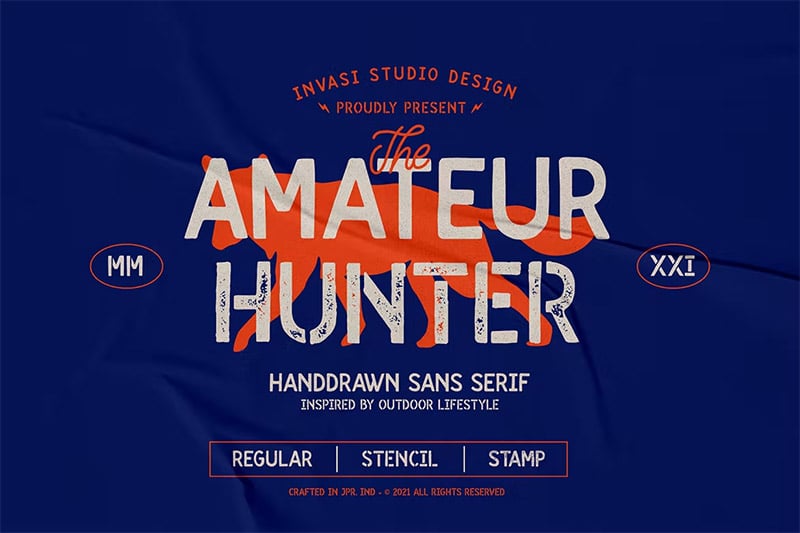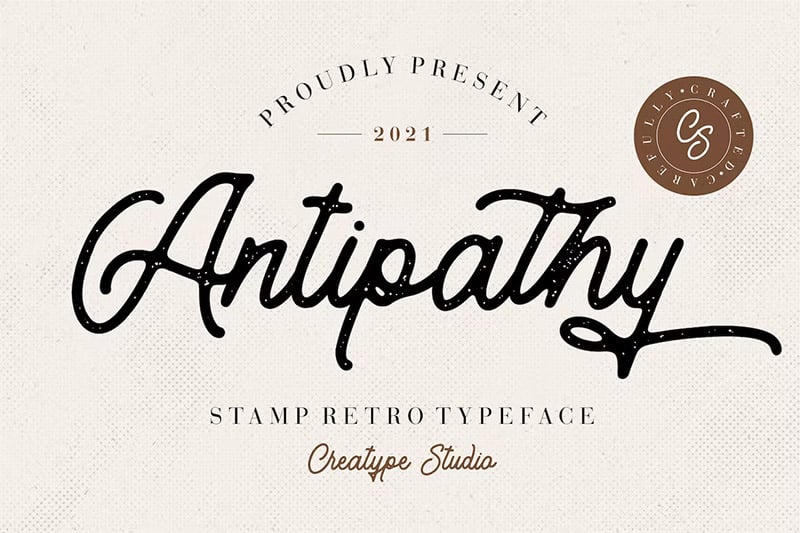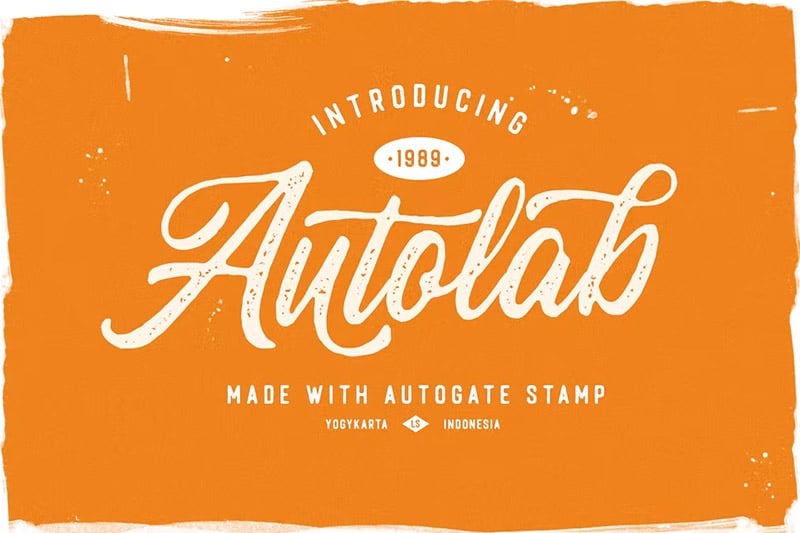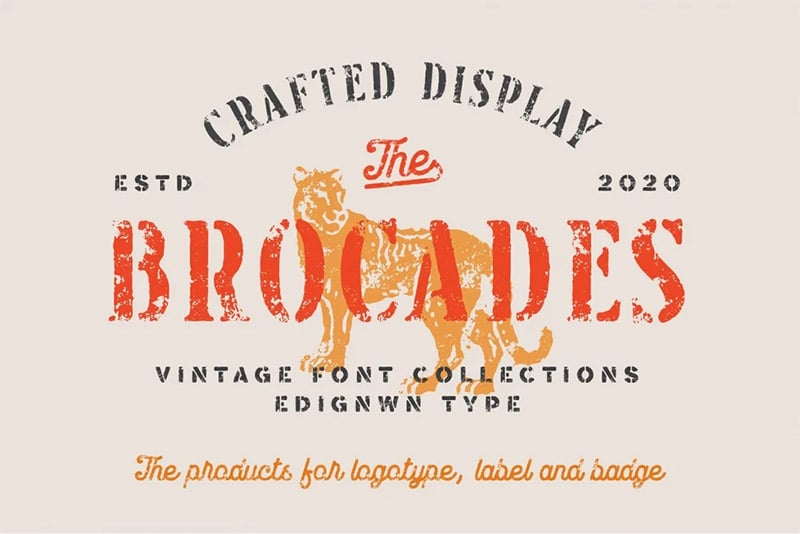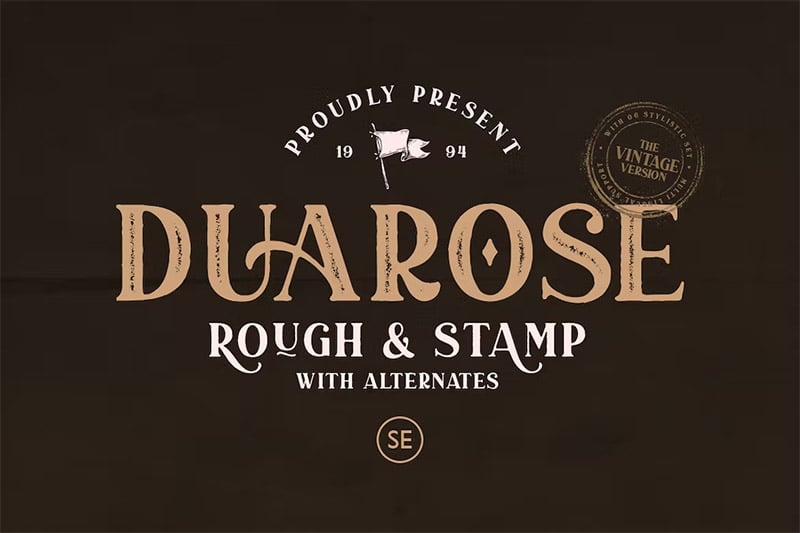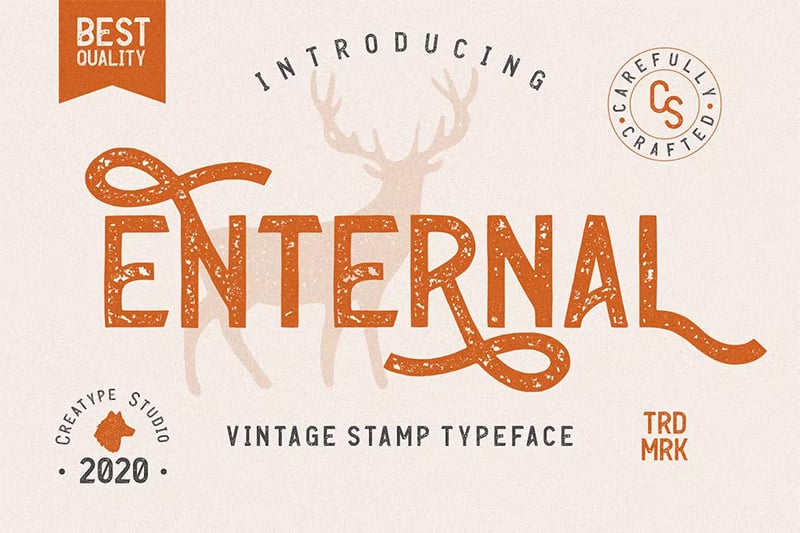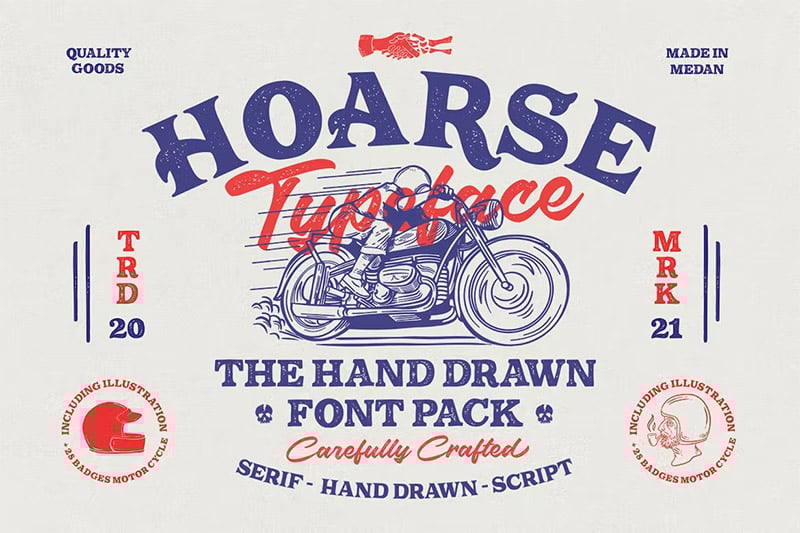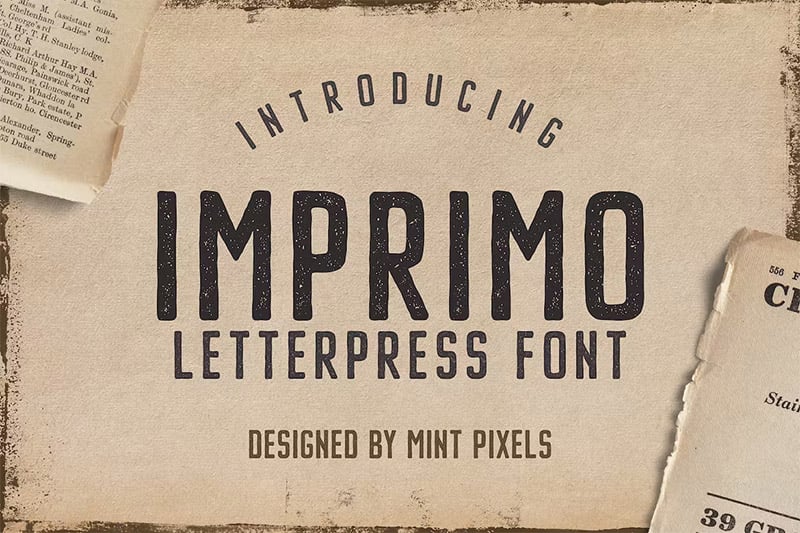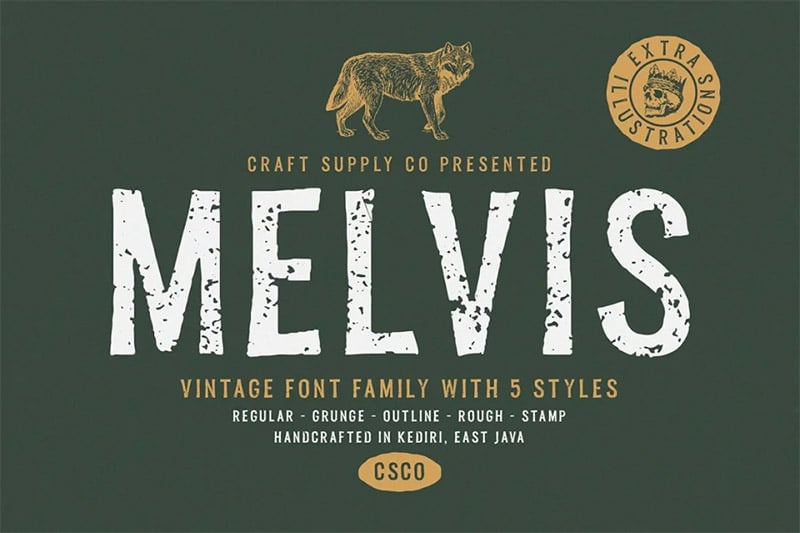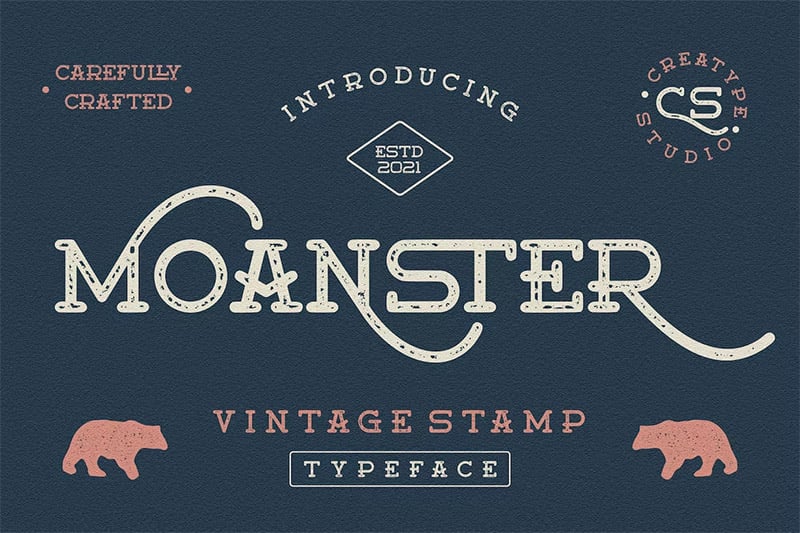
37 Best Stamp Fonts for Creative Designs
Are you tired of using the same fonts to create your designs? We've collected 37 of the best stamp fonts for you to use in your next project. Whether you're making a logo, flyer, or social media post, we've got the perfect font.
Good typography can make or break a design. Finding the right font for your design project can be time-consuming, but we've done the work for you.
Stamp fonts are a great way to add personality and character to your designs.
The Best Stamp Fonts
Designers, we have some great news for you! We've rounded up 37 best stamp fonts so you can add that tactile feel to your work. Whether you're looking for a traditional font or something more playful, we've covered you.
Let's look at some of the best stamp typefaces available.
Handler Stamp Font
The vintage brush font Handler Stamp is the perfect addition to your next branding project. With rough and smooth texture versions of the characters and up to 8 alternate characters per weight (256 total), you'll surely find something that matches your needs in no time.
Autogate Stamp
Robert Schenk's fonts are always a hit, and this one is no exception. The naturalistic style makes it perfect for branding or logo projects. The best part? Every letter looks like someone wrote them with an old-fashioned pen instead of modern font technology, so they have that authentic feel we all love in our designs.
PF Stamps Pro
PF Stamps Pro is a popular typeface name from its designer, who created it for use on postal custom rubber stamps and other US postal service applications. Still, it has since been used internationally across many different industries.
Punizione
Punizione is a versatile font that can be used in both print and digital formats. Punishing, vintage style available with two styles; clean and stamp. It has the versatility to be used in a variety of contexts. It works well for display and body text and can be used in print and digital formats. Get inspired by its coolness to use this fresh, bold stamp font on any project you have going right now.
Chillvornia Stamp
This Chillvornia Stamp font is all capital letters, a hand-drawn typeface inspired by the lettering on vintage California license plates. It includes two styles – regular and rough. This font is perfect for creating retro-themed designs, labels, badges, and more.
Melvis
It is perfect for any project that needs a touch of fun and whimsy. It includes regular and bold styles, so you can use it in all types of print material like greeting cards or package designs and DIY projects such as brand identity creation – crafty once, especially!
Whatever style floats your boat best depends entirely upon how you can use the weights & styles available, including a full set of accented characters so that all languages can be represented.
Lino Stamp Font
Lino Stamp is a geometric sans-serif typeface. To produce it, letters were carved into linoleum and inked before being impressed on paper – giving the font its worn look of authenticity! It works particularly well for headings or short paragraphs that need added flair without taking up too much space within designs like scrapbooks, where you want everything to be tightly packed together due to their compact nature.
Stampbor
Stampbor is a grungy, handcrafted script with an urban feel. It's perfect for creating streetwear designs or adding an edgy touch to any project! With six elegant and diverse stamp fonts, you can create a custom look for your next design.
Enternal Vintage Stamp Typeface
This charming all-capital letter typeface is perfect for creating vintage-inspired designs. The distressed and shadow style gives your design a vintage or grunge feel. The Enternal Vintage Stamp can use for creating logos, labels, posters, and more. And the outlined style is perfect for adding an extra layer of depth and dimension to your designs.
Millgrove
Millgrove is a versatile condensed, custom typeface with a natural, rustic feel that can be used for formal and informal projects. The stamp versions with thick lines are designed to make logos stand out more than anything else on paper- not mean as a text face but great when you need some extra personality in your work!
Roper
Roper is a display font with a strong character. This is a typeface that can be used for both displays and text. The regular, press-light versions have more options than just serifs. At the same time, the heavy-weighted styles are similar but less ornate in design, offering an elegant look when desired by designers or users alike who want something simple yet still noticeable at first glance without having too many details distract from your content.
Why You'll Love Using These Rubber Stamp Fonts in Your Designs
So, there you have it, 37 of the best stamp fonts for your next design project. Hopefully, you've found a few that will work perfectly for your needs.
Hopefully, this list will give you plenty of inspiration and help you create something truly unique. Have fun experimenting with these fonts, and see what amazing things you can come up with!